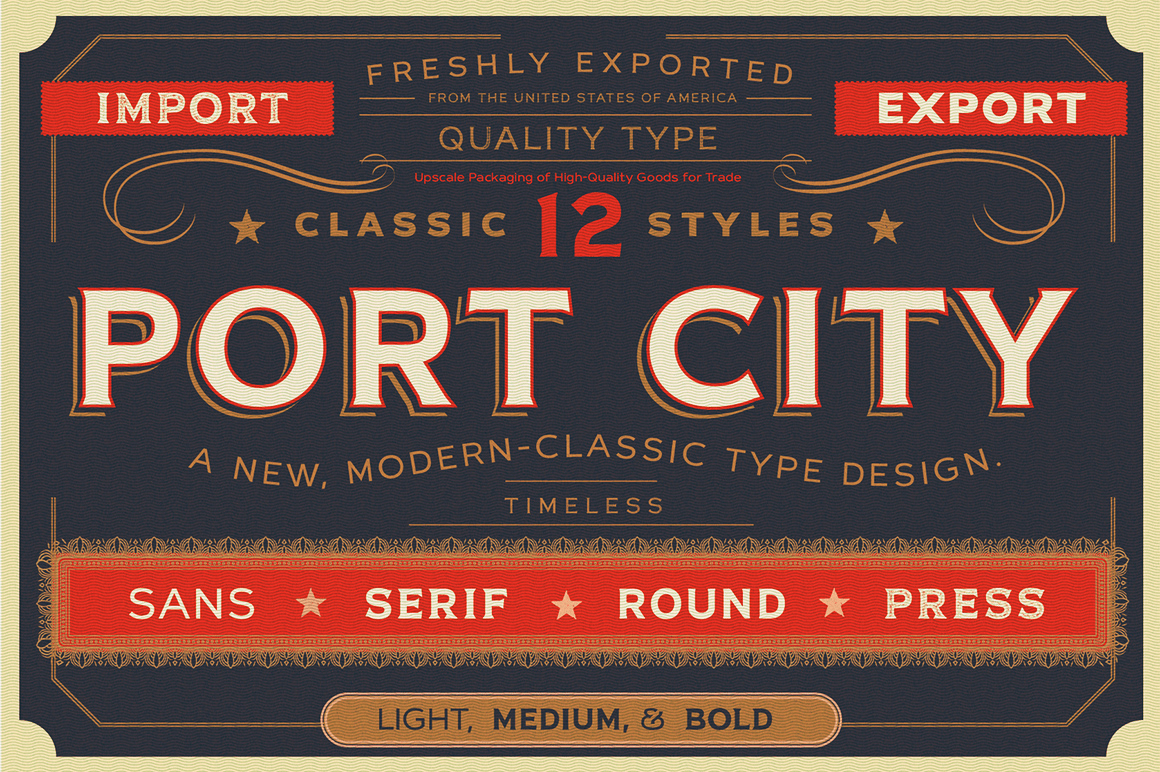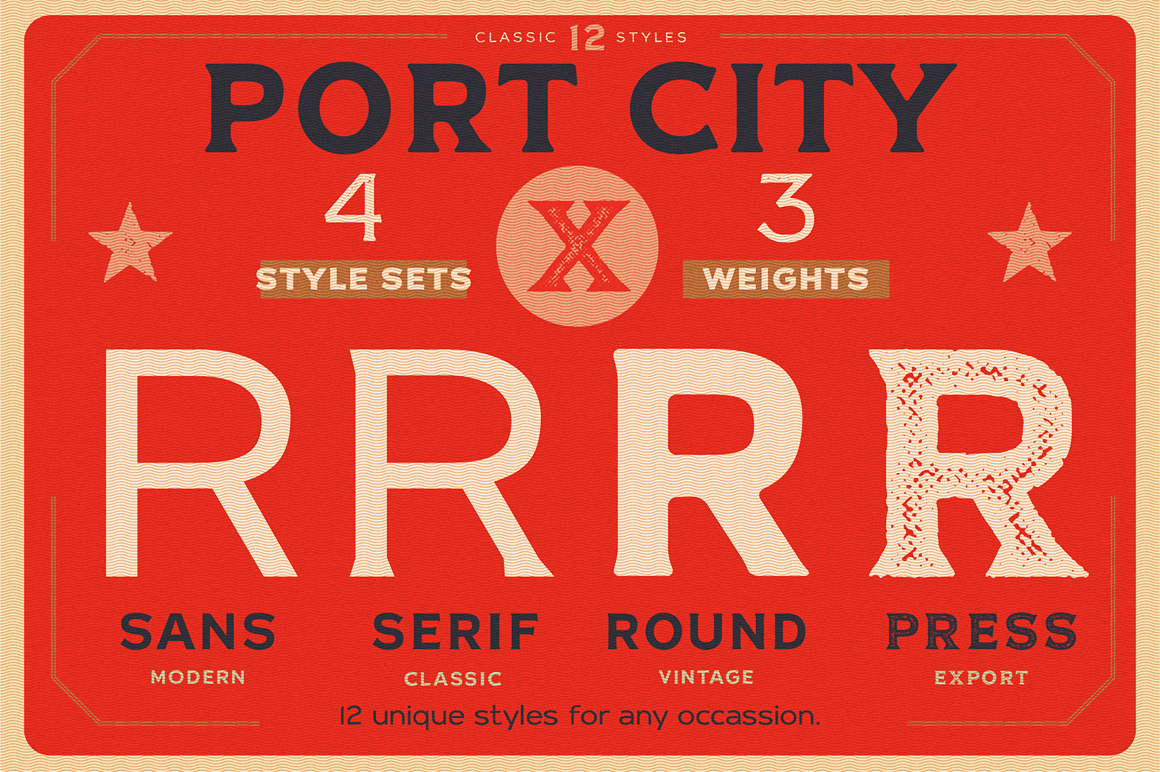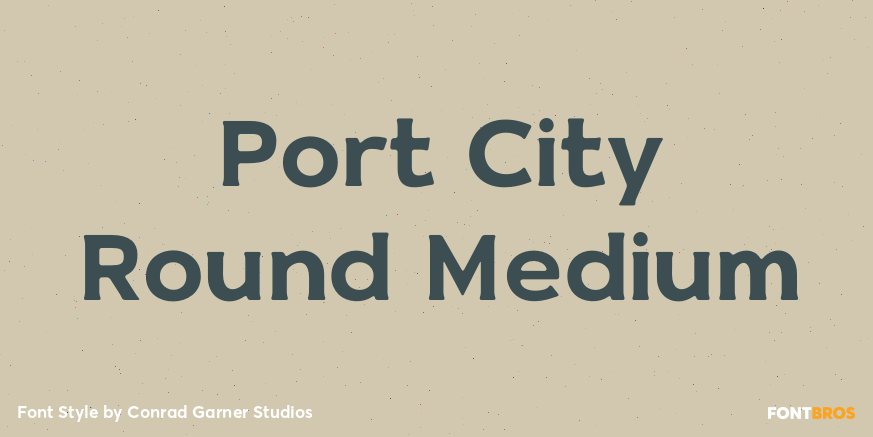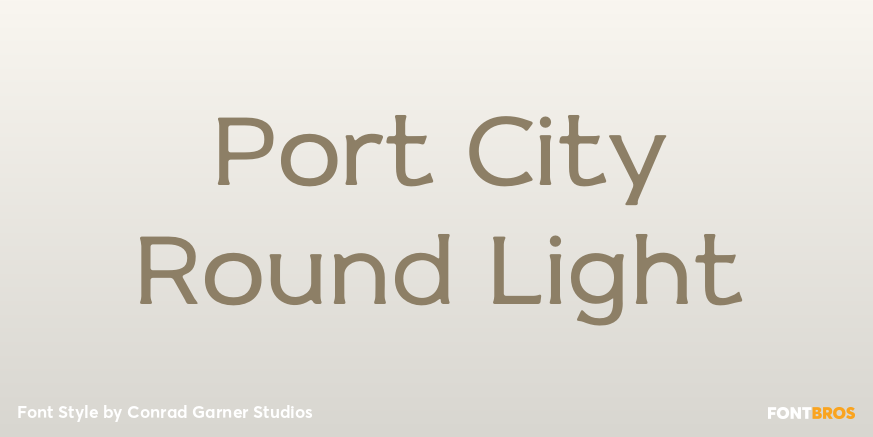
Port City
Font Family by Conrad Garner Studios
PORT CITY is a modern-classic type family designed by Conrad Garner and is inspired by the goods and packages that are shipped in and out daily from port cities across the globe and the mighty vessels that carry their precious cargo from port to port. PORT CITY includes 4 sets with three weights each. The 4 family sets include SANS, SERIF, ROUND, and PRESS. PORT CITY's classic options will let you design across decades of design styles and is very versatile when designed alone or when mixing the family sets and weights. It looks great on packaging, posters, print pieces and more.
SANS:
Features the great classic design of PORT CITY but with a hard sans serif finish on all the corners. The bold is also a bit thicker then the other style sets. It really adds a nice clean look to your design or package.
SERIF:
All PORT CITY style sets feature the great classic design of PORT CITY with a slight serif finish on all the corners (except for the SANS style set). The bold on all style sets with serifs, feature an exaggerated serif to make a BOLDER statement and look on the page or screen. This classic design really adds a modern-classic look to your design that is very versatile in many design situations.
ROUND:
Features the great classic design of PORT CITY with a slight serif finish on all the corners with an enlarged and exaggerated serif on the bold but all corner have been rounded out to give it a softer look. This style set adds a nice look to any piece of design or packaging.
PRESS:
Features the great classic design of the base PORT CITY with a slight serif finish on all the corners (except for the SANS style set). The bold on all style sets with serifs, feature an exaggerated serif to make a BOLDER statement and look on the page or screen. Get the classic look of port city but with a reproduced and printed look. It adds a nice weathered look to your design or product.